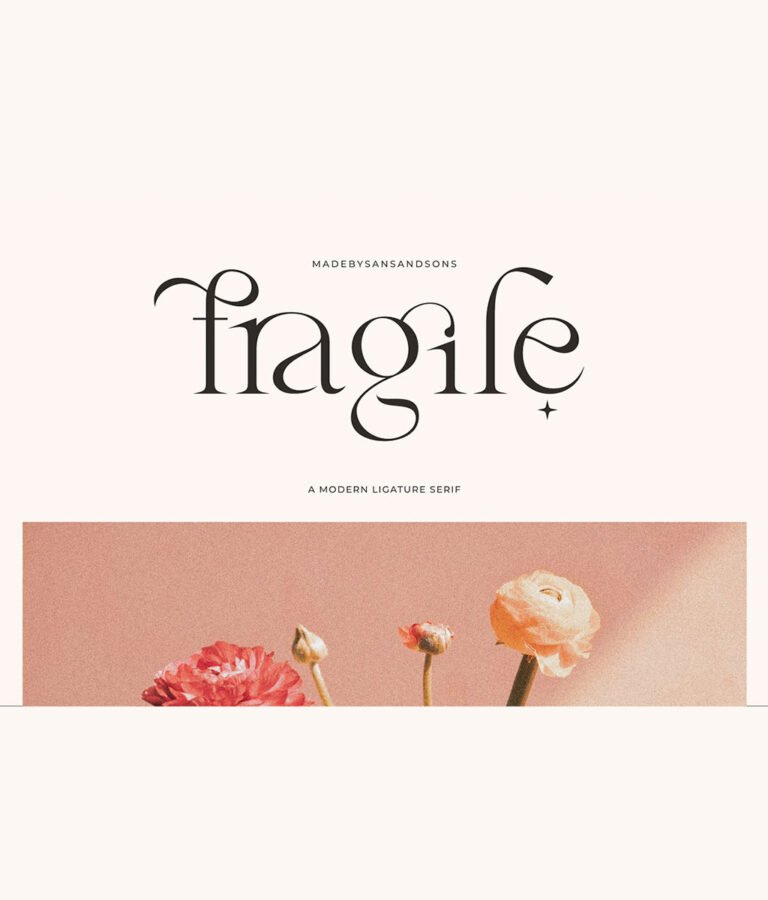
Fragile – Modern Serif
Fragile - Modern Ligature Font by Sans and Sons. Introducing our new "Fragile" Modern Ligature with Elegant Style is perfect for branding, logos, invitation, master heads, and more...